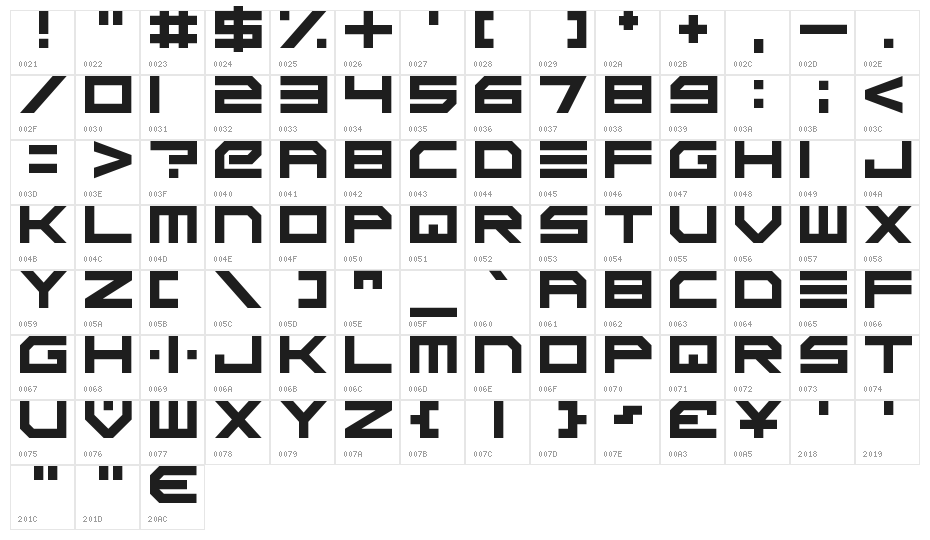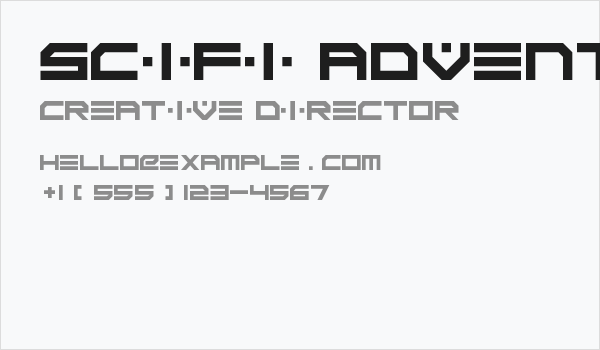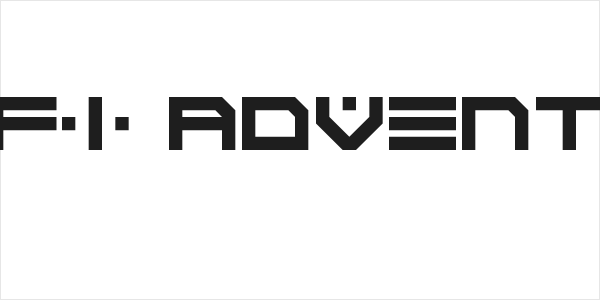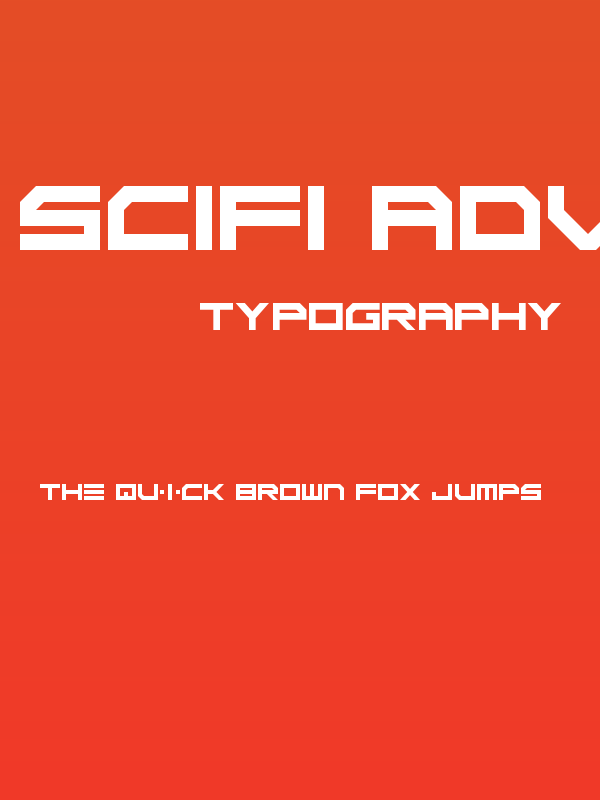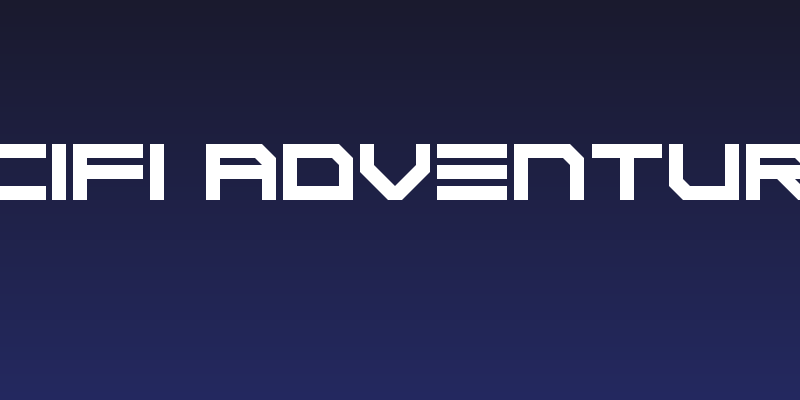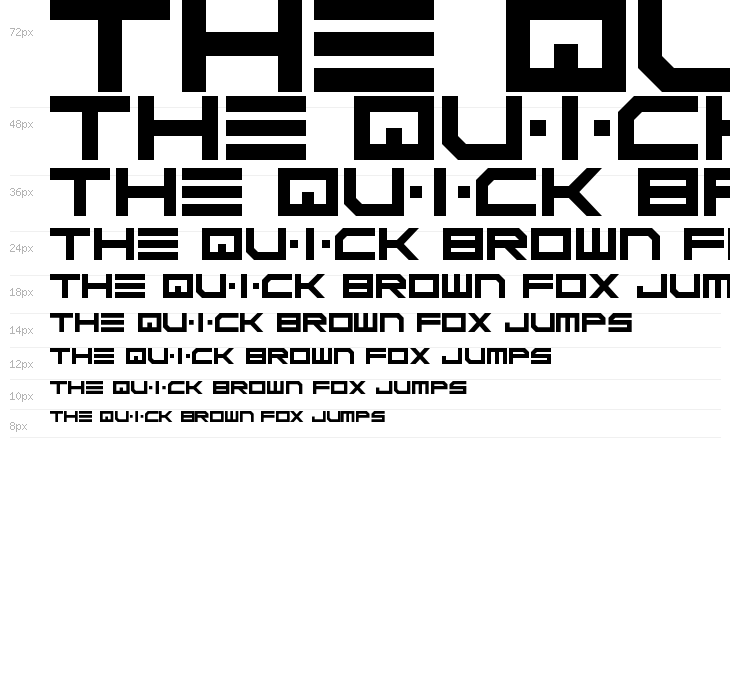
Scifi Adventure Font
Scifi Adventure Description
This font embodies a futuristic and adventurous style, characterized by its geometric and angular letterforms. The uppercase and lowercase letters share a consistent design, with sharp edges and a blocky appearance that evokes a sense of technology and innovation. The numerals and special characters maintain this cohesive aesthetic, making it ideal for projects that require a modern and sci-fi feel. The font's bold and striking presence is perfect for capturing attention and conveying a sense of forward-thinking design.
| Proposed Projects | Ideal for sci-fi movie posters, video game titles, tech branding, and futuristic event flyers. |